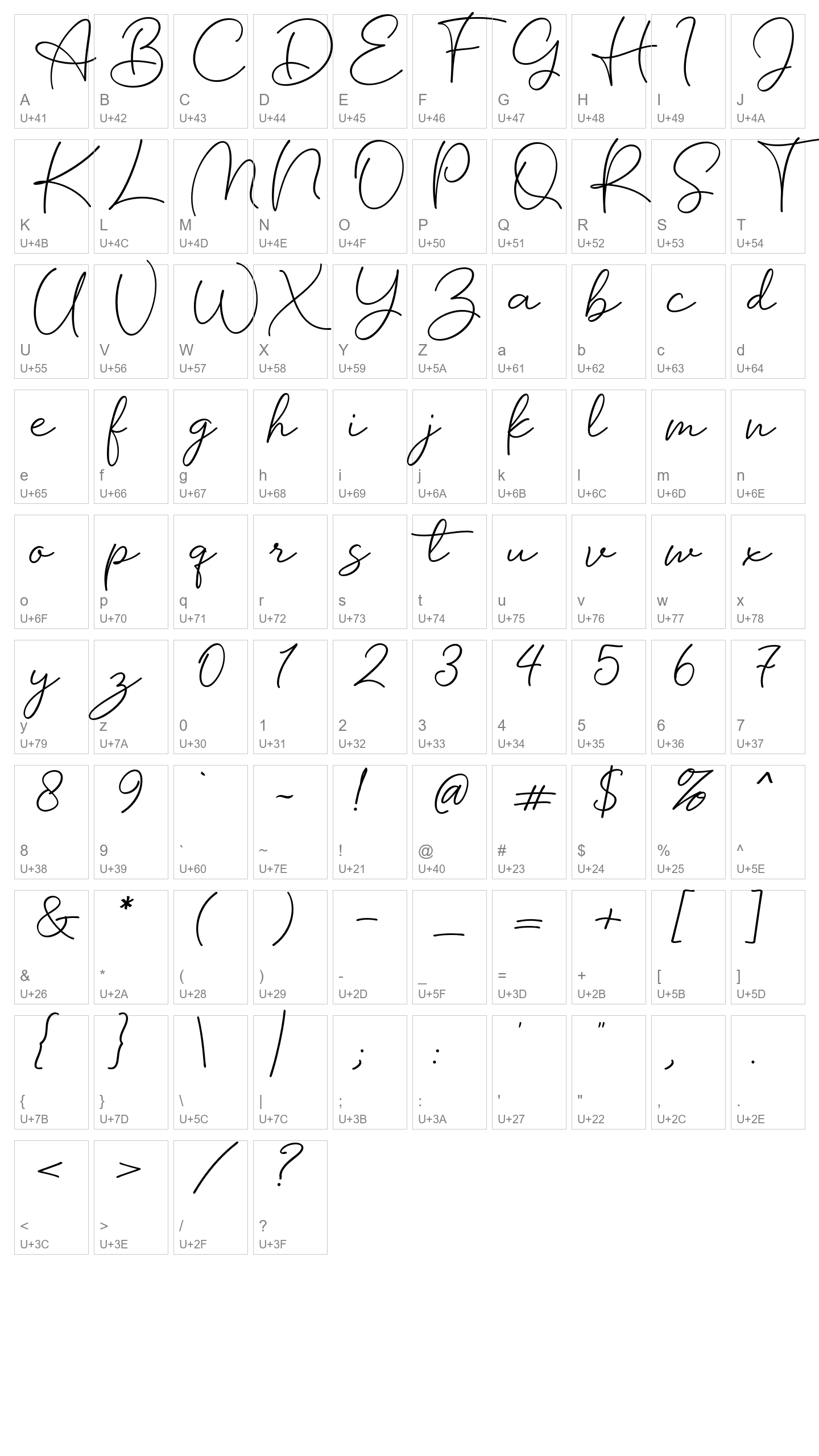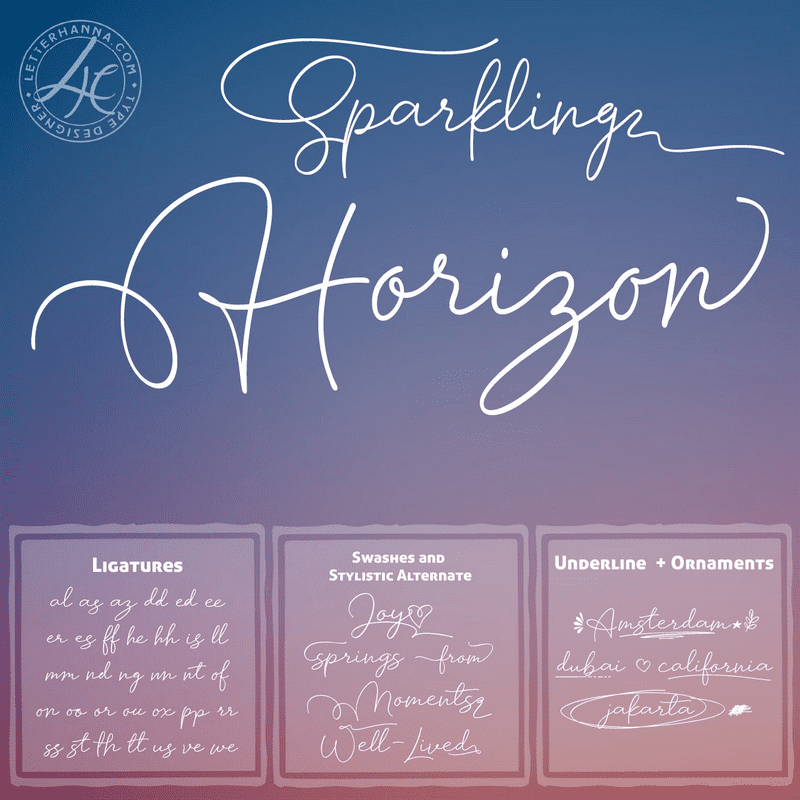
Sparkling Horizon
Introducing "Sparkling Horizon" a mesmerizing handwritten font that captures the essence of boundless creativity and shimmering elegance. With every stroke, this font evokes the sensation of glistening sunlight on the horizon, infusing your designs with a touch of radiant charm. Whether used for invitations, logos, or creative projects, "Sparkling Horizon" brings a sense of enchantment to your words. Let your imagination take flight as you create with this font, where each character sparkles like a unique star on the canvas of your design journey.